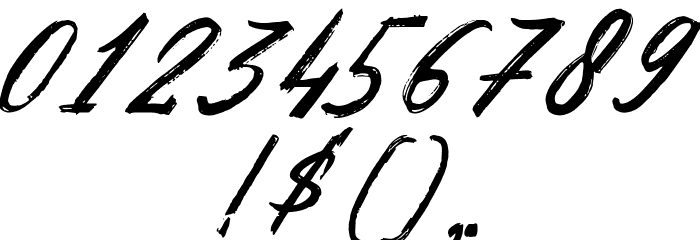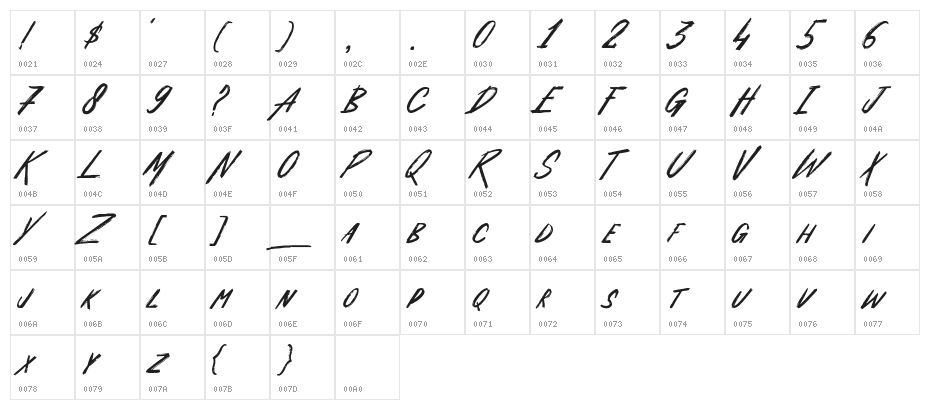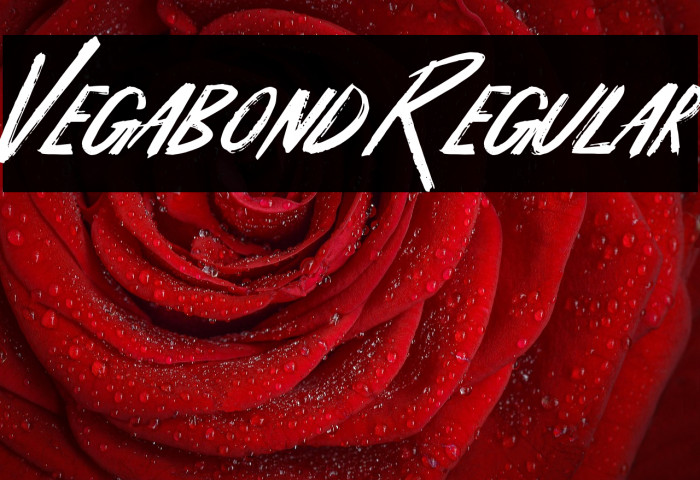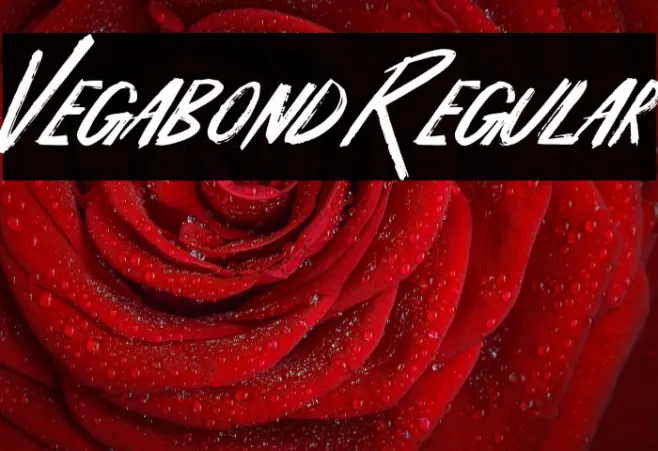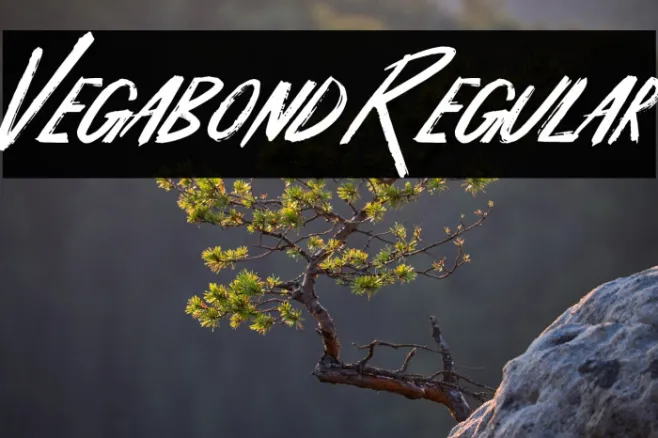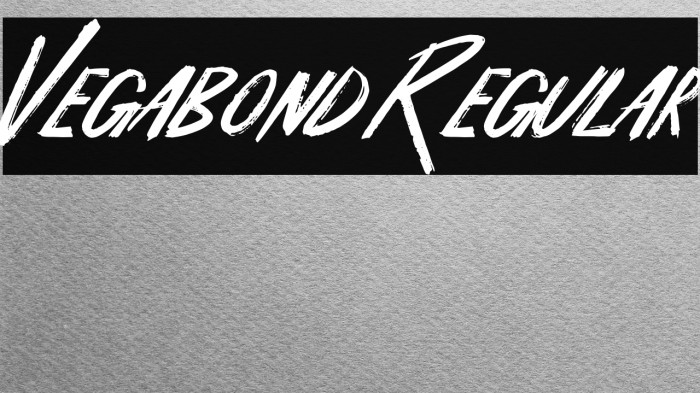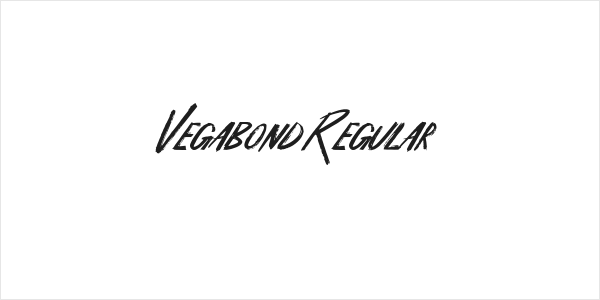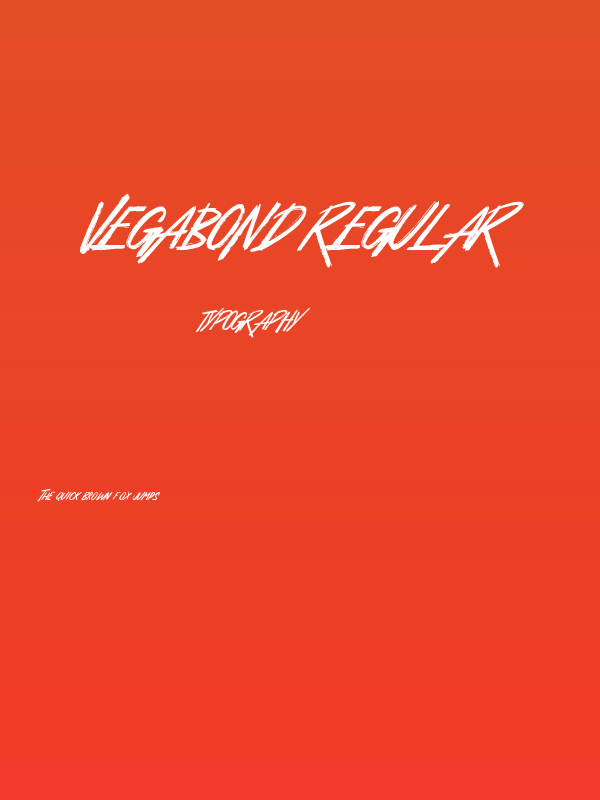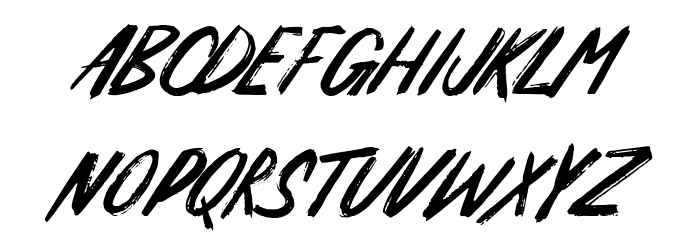
Vegabond Regular Font
Vegabond Regular Description
This font exudes a bold and dynamic energy with its brush-like strokes and irregular edges. The characters are crafted with a sense of movement, giving them a lively and expressive appearance. The uppercase and lowercase letters maintain a consistent style, with each letter exhibiting unique variations that add to the font's handcrafted feel. The numbers and special characters are equally expressive, ensuring a cohesive look across all text elements. This font is ideal for projects that require a touch of creativity and individuality.